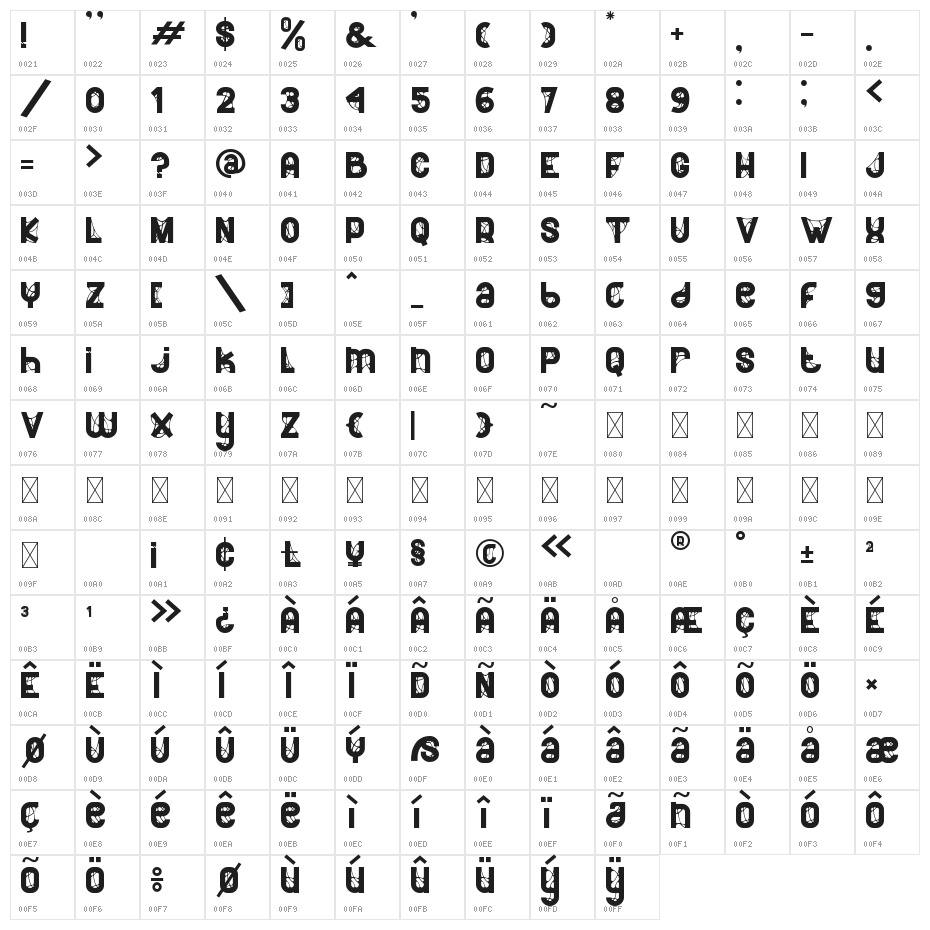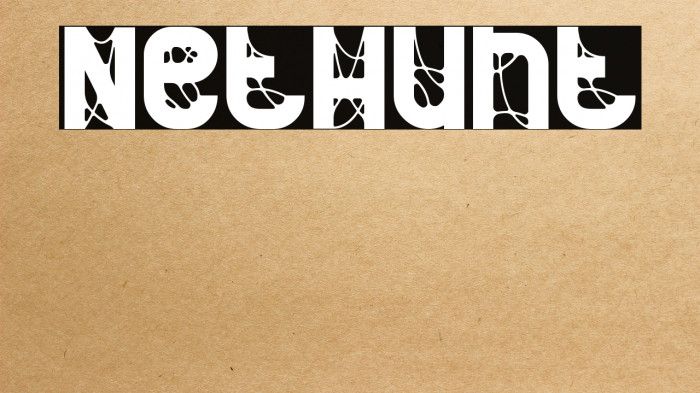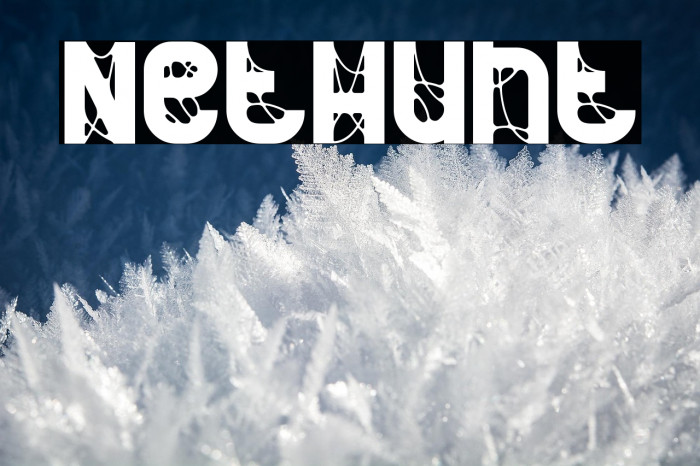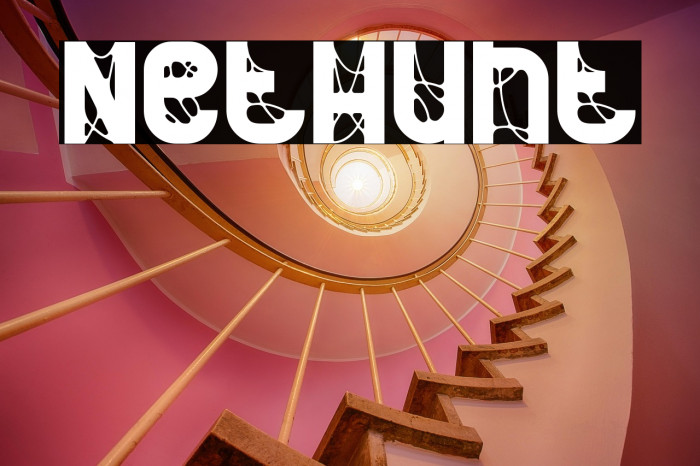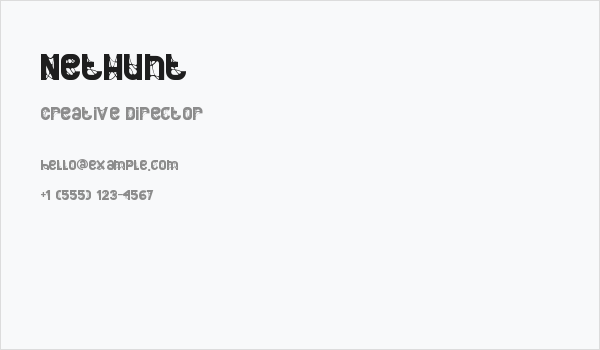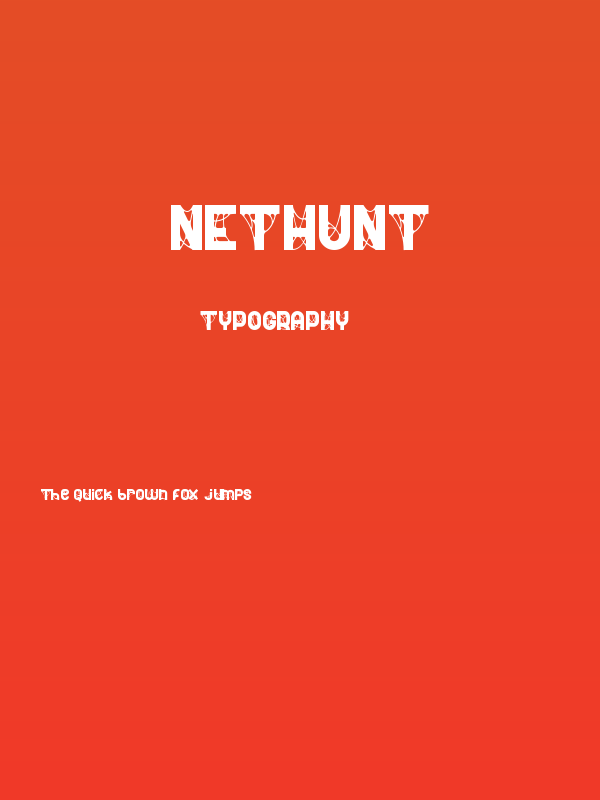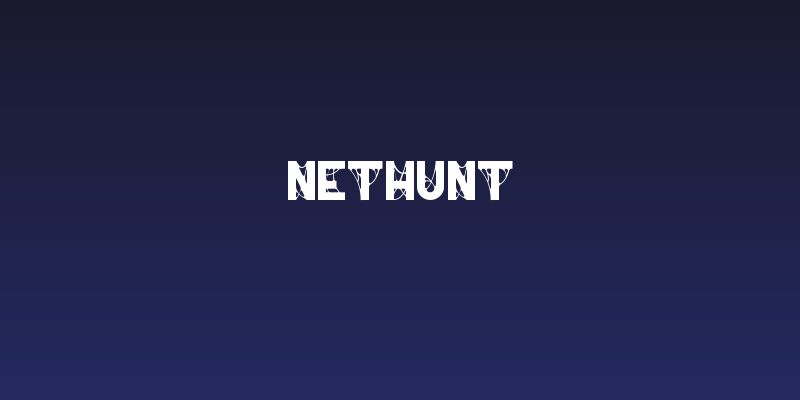
NetHunt Font
NetHunt Description
This font features a bold and decorative style with intricate web-like patterns integrated into each character, creating a unique and eye-catching appearance. The uppercase and lowercase letters maintain a consistent design, with thick strokes and high contrast between the filled and open spaces. The numerals and special characters follow the same thematic design, ensuring a cohesive look across all elements. The font's playful yet structured aesthetic makes it suitable for creative and thematic projects. Its distinctive style is ideal for capturing attention and conveying a sense of fun and creativity.
| Proposed Projects | Ideal for Halloween-themed designs, posters, event invitations, and any project requiring a playful, spooky aesthetic. |